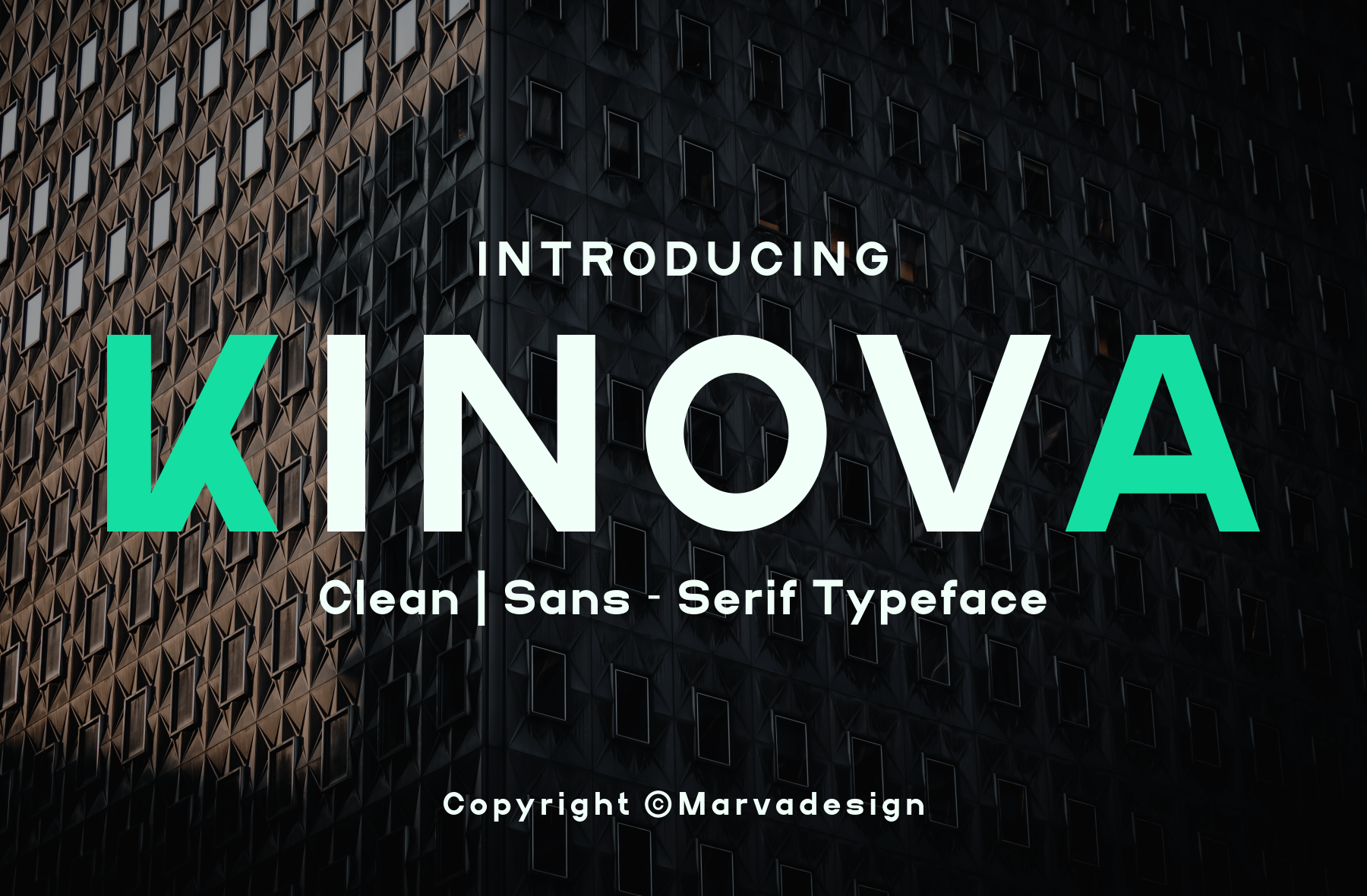
Kinova - A Modern Sans Serif Font
Introducing our new product Kinova Font - Modern Font is a bold and authentic display font. The font is suitable for any branding project like logo, Template Design, Product and many more. outstanding in a wide range of contexts.